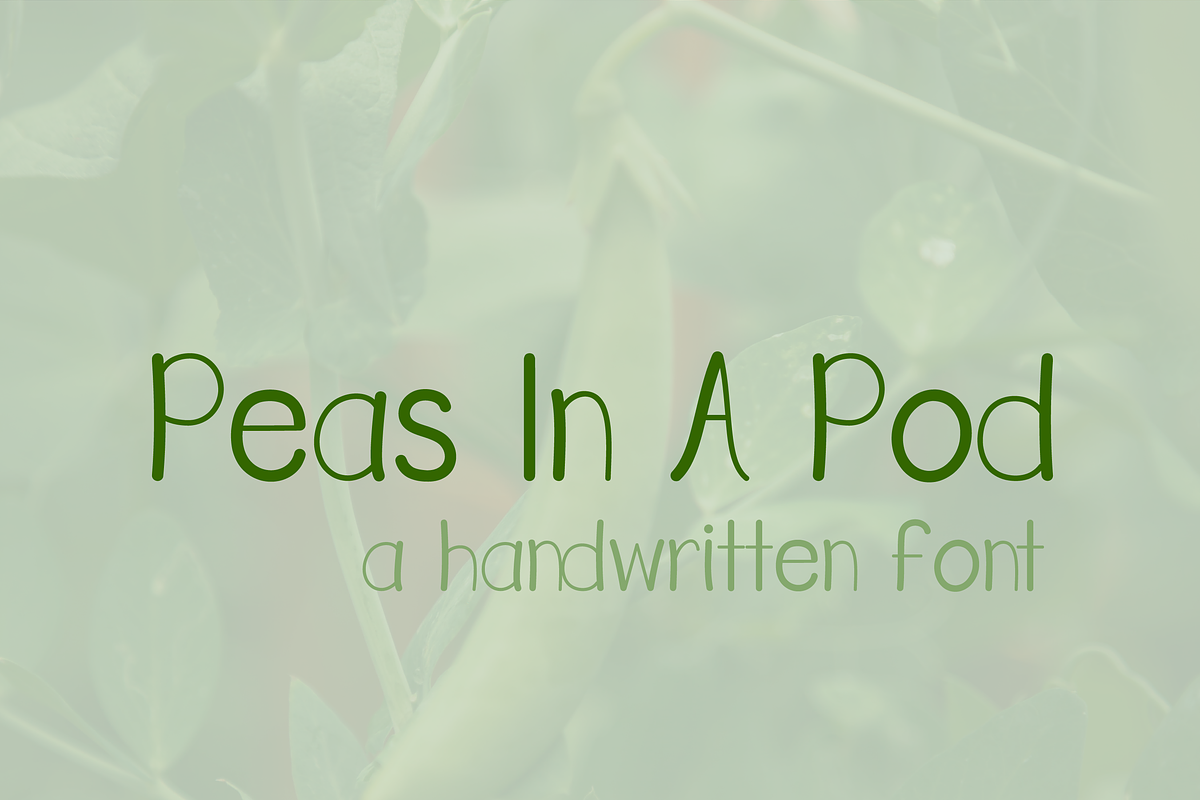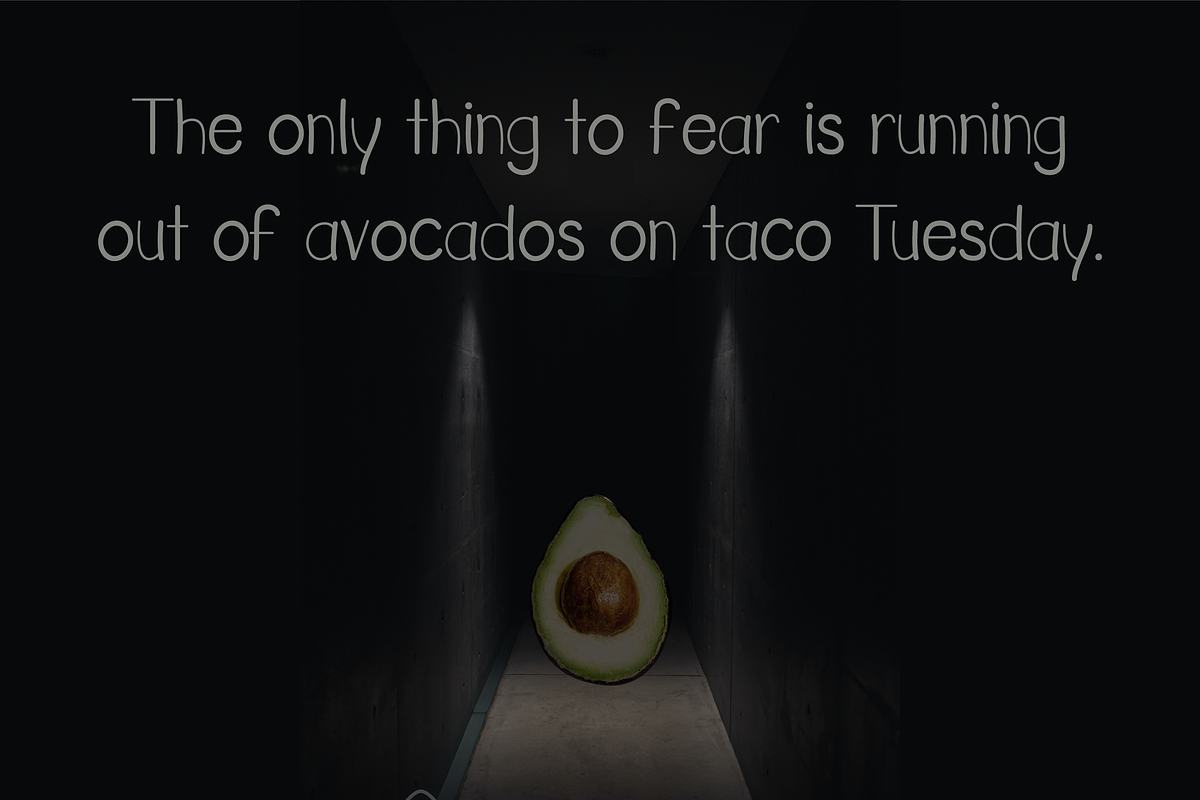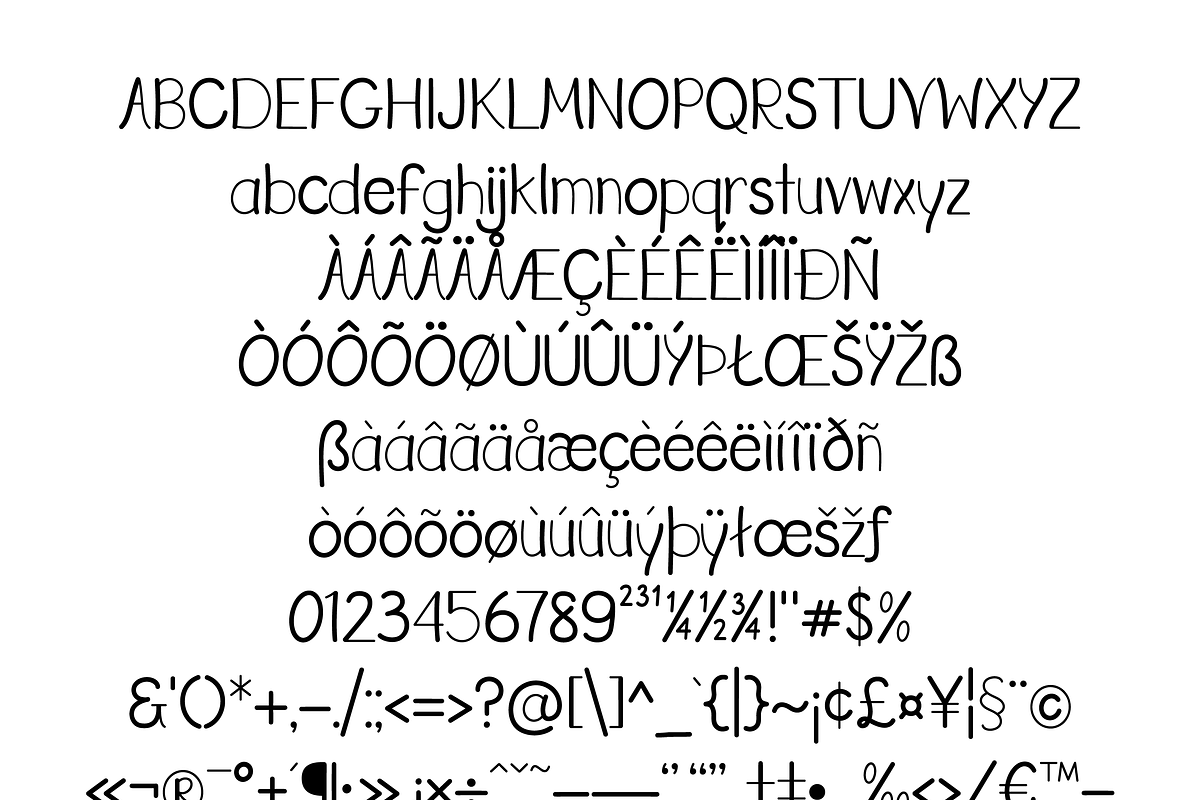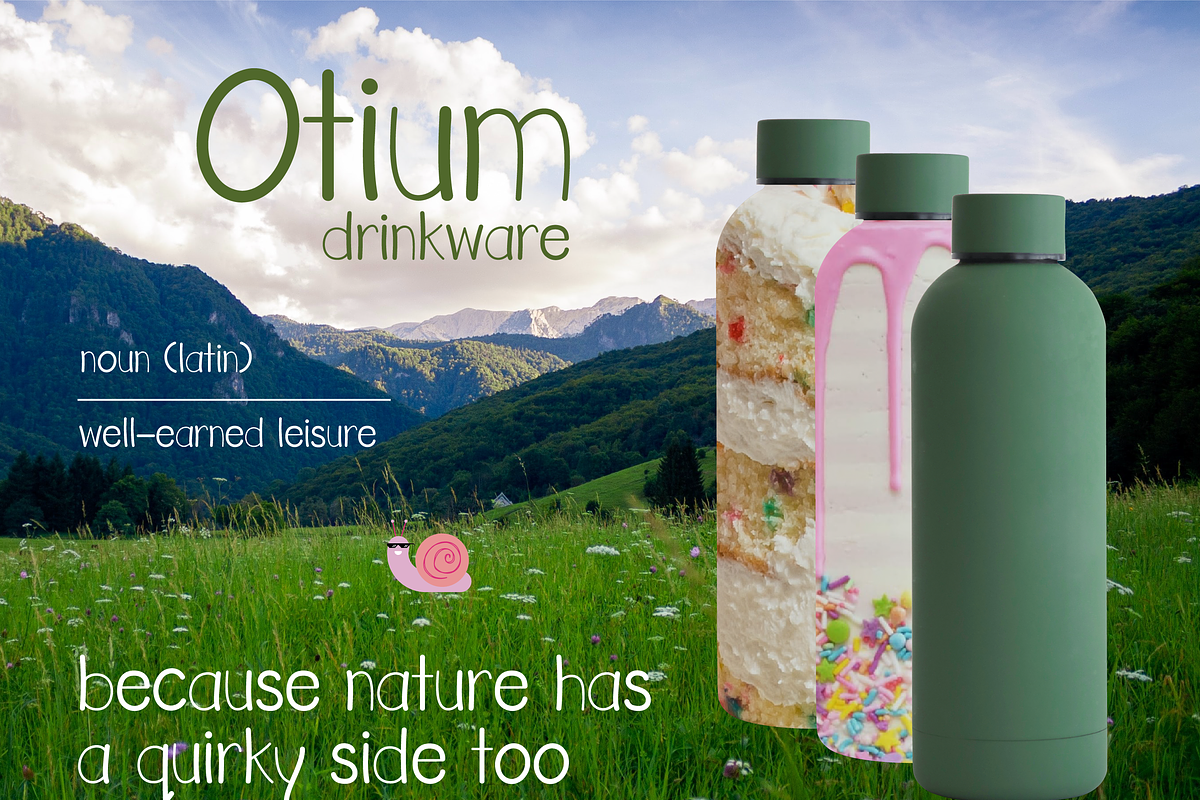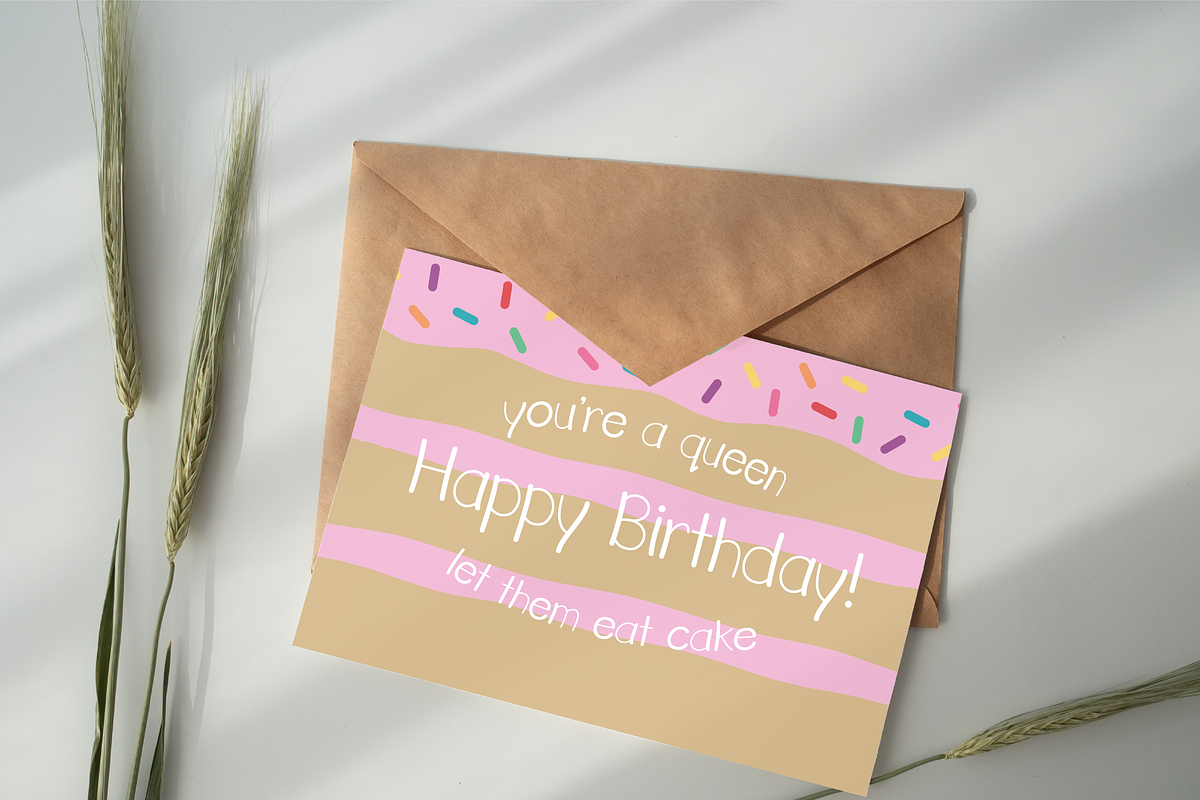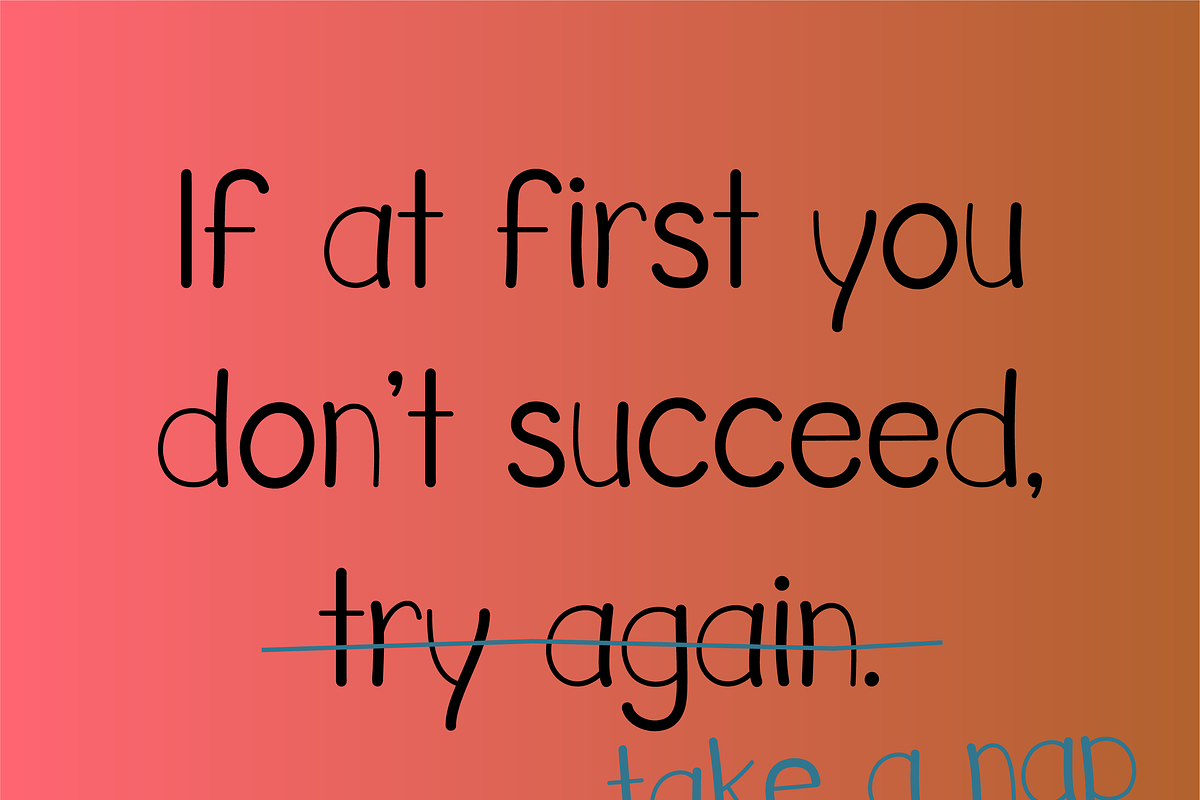
Peas In A Pod Font
Peas In A Pod may be a cute font, but this type has a plethora of uses. Its use of thick and thin lines makes it a wonderful display font or an easy-to-read body font.